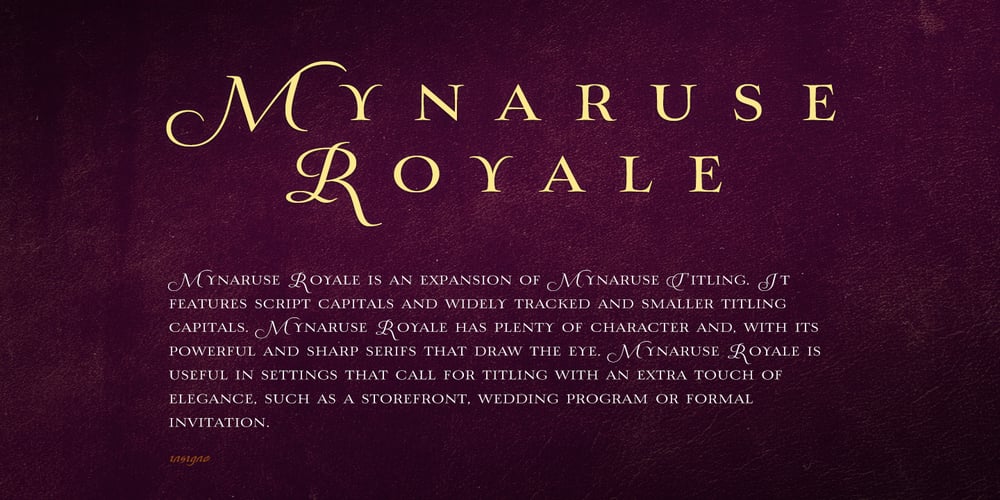
Mynaruse Royale Font Family was designed by Jeremy Dooley and published by insigne. Mynaruse Royale contains 6 styles and family package options. Mynaruse Royale is an expansion of Mynaruse Titling. It features script capitals and widely tracked and smaller titling capitals. Mynaruse Royale has plenty of character and, with its powerful and sharp serifs it draws in the eye. Mynaruse Royale is useful in settings that call for titling with an extra touch of elegance, such as a storefront, wedding program or formal invitation. Mynaruse Royale contains a number of OpenType alternates, including alternate forms for the capitals that are large, drop cap like capitals instead of the calligraphic script capitals found in the default forms. Additionally, there are non-widely tracked lowercase forms that work well with the included alternate characters and ligatures. The lowercase forms are 80% smaller in height than the Mynaruse lowercase forms, so the families are not interchangeable, but they can be used together. The calligraphic script capitals could also be used separately as drop capitals. OpenType-capable applications such as the Adobe suite or Quark can take full advantage of automatically replacing ligatures and alternates. This family also includes the glyphs to support a wide range of latin based languages.